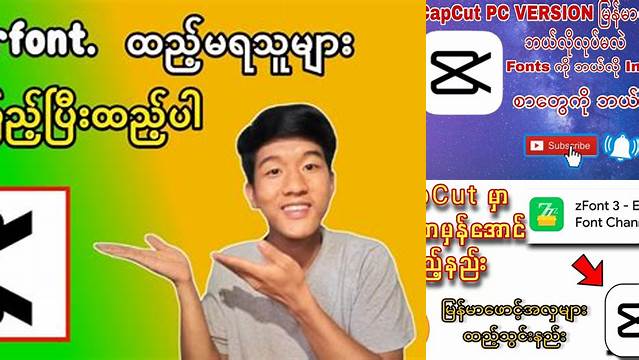
CapCut Myanmar Font: Free Download For Stunning Videos
Hey guys! Are you looking to spice up your video editing game with some awesome Myanmar fonts for CapCut? You've come to the right place! In this article, we're diving deep into the world of CapCut Myanmar fonts, showing you where to find them, how to download them for free, and how to use them to make your videos pop. Let's get started!
Myanmar Font Styles for CapCut
When it comes to choosing the right Myanmar font for CapCut, the options are endless! From traditional scripts to modern, stylized designs, there's a font out there to match every video theme and aesthetic. Whether you're creating a travel vlog, a cooking tutorial, or a music video, the right font can add a touch of authenticity and flair to your project. Explore various font styles to find the perfect match for your video's vibe. Experiment with different weights, sizes, and colors to see what looks best. Don't be afraid to mix and match fonts to create a unique and eye-catching design. Remember, the key is to choose a font that is both visually appealing and easy to read, ensuring that your message gets across effectively. So, go ahead and unleash your creativity with a wide range of Myanmar font styles available for CapCut. Let your videos stand out from the crowd with the perfect typography!
Using Myanmar Fonts in CapCut
Now for the fun part: using your newly installed Myanmar fonts in CapCut! Open up CapCut and start a new project or open an existing one. When you're ready to add text to your video, select the text tool and start typing. In the font selection menu, you should now see your Myanmar fonts listed alongside the default fonts. Simply select the font you want to use, adjust the size, color, and style to your liking, and position the text on the screen. Experiment with different font combinations and text effects to create a visually appealing design. Consider using animated text effects to add movement and dynamism to your videos. Additionally, pay attention to the legibility of your text. Choose a font size and color that are easy to read against the background of your video. Use contrasting colors to ensure that your text stands out and doesn't get lost in the visuals. With a little bit of experimentation, you'll be able to master the art of using Myanmar fonts in CapCut to create stunning and engaging videos that captivate your audience.
Best Myanmar Fonts for Different Video Themes
Choosing the right Myanmar font can really elevate your video. For travel vlogs, consider using fonts that evoke a sense of adventure and discovery. Look for fonts with a handwritten or calligraphy-inspired style to add a personal touch to your videos. For cooking tutorials, opt for fonts that are clean, modern, and easy to read. Choose fonts with a clear and legible design to ensure that viewers can easily follow along with your instructions. For music videos, experiment with bold and expressive fonts that reflect the energy and mood of the music. Look for fonts with unique shapes and textures to add visual interest to your videos. When selecting a font, consider the overall theme and tone of your video. Choose fonts that complement the visuals and enhance the message you're trying to convey. Don't be afraid to mix and match fonts to create a unique and eye-catching design. However, be sure to use fonts sparingly and avoid overcrowding your videos with too much text. With a little bit of creativity, you can use Myanmar fonts to enhance the storytelling and visual appeal of your videos, making them more engaging and memorable for your audience.
Creating Engaging Titles with Myanmar Fonts
Your video's title is the first thing viewers see, so make it count! Using a striking Myanmar font can instantly grab attention. For attention-grabbing titles, experiment with bold and impactful fonts that stand out from the background. Use contrasting colors to make your text pop and ensure that it's easily readable. Consider adding shadows, outlines, or other text effects to enhance the visual appeal of your titles. When creating titles, keep them concise and to the point. Use keywords that accurately reflect the content of your video to improve its searchability. Additionally, pay attention to the placement of your titles on the screen. Position them in a way that is visually balanced and doesn't obstruct the main visuals of your video. Use animations or transitions to bring your titles to life and make them more engaging. Experiment with different animation styles to find what works best for your video. With a little bit of creativity, you can use Myanmar fonts to create titles that are both visually appealing and informative, capturing the attention of your audience and enticing them to watch your video.
Adding Subtitles in Myanmar with CapCut
Subtitles are essential for making your videos accessible to a wider audience. CapCut makes it easy to add subtitles in Myanmar using your downloaded fonts. Import your video into CapCut and use the text tool to add subtitles. Choose a Myanmar font that is easy to read and matches the overall style of your video. Ensure that your subtitles are accurately translated and synchronized with the audio. Use clear and concise language to convey the message effectively. Position your subtitles at the bottom of the screen, where they are easily visible without obstructing the main visuals. Adjust the size and color of your subtitles to ensure that they are legible against the background. Consider adding a background or shadow to your subtitles to improve their visibility. With CapCut, you can easily create professional-looking subtitles in Myanmar that enhance the accessibility and engagement of your videos. By providing subtitles, you can reach a wider audience and make your videos more inclusive and enjoyable for everyone.
Tips for Readable Myanmar Text in Videos
Readability is key! Make sure your Myanmar text is easy to read by choosing the right font size and color. Use contrasting colors to ensure that your text stands out from the background. Avoid using overly ornate or decorative fonts that can be difficult to decipher. Pay attention to the spacing between letters and words to improve readability. Use clear and concise language to convey your message effectively. Position your text in a way that is visually balanced and doesn't obstruct the main visuals of your video. Consider adding a background or shadow to your text to improve its visibility. Test your video on different devices and screen sizes to ensure that your text is legible across all platforms. Get feedback from others to identify any potential readability issues. With a little bit of attention to detail, you can create Myanmar text that is both visually appealing and easy to read, enhancing the overall quality and effectiveness of your videos.
Copyright Considerations for Myanmar Fonts
Always be mindful of copyright when using Myanmar fonts. Before downloading and using any font, be sure to check its licensing terms. Some fonts are free for personal use but require a commercial license for use in commercial projects. Other fonts may have specific restrictions on how they can be used or modified. Respect the intellectual property rights of font designers and foundries. Avoid using fonts without proper authorization, as this can lead to legal consequences. If you're unsure about the licensing terms of a particular font, contact the designer or foundry for clarification. Consider using fonts that are licensed under open-source licenses, such as the SIL Open Font License (OFL), which allows for free use, modification, and distribution. By being mindful of copyright considerations, you can ensure that you're using Myanmar fonts legally and ethically, while also supporting the creative community.
Combining Myanmar and English Fonts
Mixing Myanmar and English fonts can create a visually interesting effect. When combining fonts, choose fonts that complement each other in terms of style and weight. Avoid using fonts that clash or compete for attention. Use Myanmar fonts for main headings or titles and English fonts for body text or supporting information. Ensure that the fonts are legible and easy to read in both languages. Consider the cultural context of your video when choosing fonts. Use fonts that are appropriate for the target audience and the message you're trying to convey. Experiment with different font combinations to find what works best for your video. Get feedback from others to see how the fonts look together. With a little bit of creativity, you can use Myanmar and English fonts to create a visually appealing and culturally relevant video.
CapCut Font Alternatives for Myanmar Script
If you're having trouble finding the perfect Myanmar font for CapCut, consider exploring font alternatives that support the Myanmar script. There are several fonts available that offer similar styles and characteristics to traditional Myanmar fonts. Look for fonts that are designed to be legible and easy to read on screen. Consider fonts that are available under open-source licenses, which allow for free use and modification. Explore font foundries that specialize in creating fonts for Southeast Asian languages. Check online forums and communities for recommendations on font alternatives. Experiment with different font options to find what works best for your video. Don't be afraid to try something new and unique. With a little bit of research and creativity, you can find the perfect font alternative to enhance your CapCut videos.
Font Pairing Tips for Myanmar Typography
Font pairing is an art! Here are some tips for pairing Myanmar fonts with other fonts. Choose fonts that have contrasting styles to create visual interest. Pair a bold Myanmar font with a lighter sans-serif font for a balanced look. Use a script Myanmar font for headings and a simple sans-serif font for body text. Consider the personality of each font when pairing them. Use fonts that complement each other in terms of mood and tone. Avoid using too many fonts in a single design, as this can create a cluttered and confusing look. Stick to two or three fonts at most. Use a font pairing tool or website for inspiration. Get feedback from others on your font pairings. With a little bit of experimentation, you can master the art of font pairing and create visually stunning designs.
Mobile vs. Desktop Font Installation for CapCut
The process of installing Myanmar fonts for CapCut may vary depending on whether you're using a mobile device or a desktop computer. On a desktop computer, you typically need to download the font files and install them directly onto your system. This will make the fonts available to all applications on your computer, including CapCut. On a mobile device, the process may be different. Some mobile devices allow you to install fonts directly through a font management app, while others may require you to use a file manager to copy the font files to a specific directory. Check the documentation for your mobile device to learn how to install fonts. Keep in mind that not all Myanmar fonts may be compatible with mobile devices. Test the fonts on your device to ensure that they display correctly. With a little bit of effort, you can install Myanmar fonts on both your mobile and desktop devices and use them to create stunning videos with CapCut.
Advanced Text Effects with Myanmar Fonts in CapCut
Take your Myanmar text to the next level with advanced text effects in CapCut! Experiment with shadows, outlines, and glows to make your text stand out. Use animation to bring your text to life and add movement to your videos. Try different blending modes to create unique visual effects. Use masks to reveal or hide portions of your text. Add textures to your text to give it a more tactile feel. Use gradients to create a smooth transition between colors. Experiment with 3D effects to add depth and dimension to your text. With a little bit of creativity, you can use advanced text effects to create visually stunning Myanmar text that captivates your audience. Explore the various text editing tools in CapCut and see what you can create!
Optimizing Myanmar Font Size for Different Screens
Myanmar Font size is crucial for readability, especially on different screens. What looks good on your computer might be too small on a phone. Adjust your font size based on the device your audience will likely use. For mobile viewers, go bigger! Test your videos on different devices to ensure your Myanmar text is always clear. Think about the resolution too - higher resolution screens can handle smaller fonts better. Don't be afraid to experiment until it looks just right!
Choosing the Right Font Weight for Myanmar Text
Font weight matters. A Myanmar font that's too light can be hard to read, while one that's too bold can be overwhelming. Choose a font weight that complements your video's style and ensures readability. Lighter weights work well for minimalist designs, while heavier weights are great for grabbing attention. Consider the background of your video - a darker background might require a bolder font. Test different weights to see what looks best! Remember, the goal is clear and engaging Myanmar text.
Adding Myanmar Font to CapCut on iOS
Adding a Myanmar font to CapCut on iOS is slightly different. First, you'll need a font installer app. Download your desired Myanmar font and use the app to install it on your device. Then, open CapCut and your new font should be available in the text options. Make sure the font is compatible with iOS! Restarting CapCut can sometimes help if the font doesn't appear immediately. Enjoy using your custom Myanmar font in your videos!
Adding Myanmar Font to CapCut on Android
For Android users, adding a Myanmar font to CapCut is a bit more straightforward. Download the Myanmar font file. Use a file manager to move the font file to the "Fonts" folder on your device (if it doesn't exist, create one). Restart CapCut, and the font should now be available. Some Android devices might require a font installer app. Double-check that the font is compatible with your Android version. Now you can create awesome videos with your personalized Myanmar font!
Creating Myanmar Text Templates for CapCut
Want to save time? Create Myanmar text templates for CapCut! Design your text with your favorite Myanmar font, add effects, and save it as a template. Now you can easily reuse this template in future videos! This is great for branding and consistency. Experiment with different styles and create a library of templates. Share your templates with friends and collaborators! This makes video editing faster and more efficient.
Using Unicode Myanmar Fonts in CapCut
Unicode Myanmar fonts are your best bet for compatibility. They ensure that your Myanmar text displays correctly across different devices and platforms. When downloading Myanmar fonts, look for those that are Unicode compliant. This will prevent issues like garbled text or missing characters. Test your Myanmar text on different devices to ensure it looks perfect everywhere. Unicode is your friend for seamless Myanmar text in CapCut!
Finding Copyright-Free Myanmar Fonts
Finding copyright-free Myanmar fonts can be tricky. Look for fonts with a Creative Commons license or those explicitly labeled as public domain. Websites like Google Fonts often offer copyright-free Myanmar fonts. Always double-check the license before using a font in your commercial projects. Using copyright-free Myanmar fonts ensures you're not violating any intellectual property rights. Be sure to credit the font designer if required by the license.
Myanmar Font Generators for CapCut
Myanmar font generators can help you create unique text designs for CapCut. These tools allow you to customize your text with different styles, colors, and effects. Simply type in your Myanmar text and experiment with the options. Some generators even offer pre-designed templates. Download your customized text and import it into CapCut. This is a great way to add a personal touch to your videos.
Exploring Calligraphy Myanmar Fonts for Videos
Calligraphy Myanmar fonts add elegance and sophistication to your videos. These fonts mimic the beautiful strokes of traditional Myanmar calligraphy. Use them for titles, intros, or special announcements. Choose a calligraphy Myanmar font that is easy to read and complements your video's style. Experiment with different colors and effects to enhance its visual appeal. Calligraphy Myanmar fonts can elevate your videos to a whole new level!
Monotype Myanmar Fonts for Professional Videos
Monotype Myanmar fonts are known for their high quality and professional look. They are designed for optimal readability and visual appeal. Using Monotype Myanmar fonts can give your videos a polished and sophisticated feel. These fonts are often used in corporate videos, documentaries, and educational content. While they may come at a cost, the investment is worth it for professional-grade typography.
How to Resize Myanmar Fonts Effectively
Resizing Myanmar fonts effectively is crucial for readability. Use a font size that is appropriate for the screen size and viewing distance. Avoid making the font too small or too large, as this can strain the eyes. Test your videos on different devices to ensure that the font size is optimal. Use responsive design techniques to automatically adjust the font size based on the screen size. Proper font resizing ensures that your Myanmar text is always clear and legible.
Best Practices for Using Myanmar Fonts in Video Editing
Follow these best practices for using Myanmar fonts in video editing. Choose fonts that are easy to read and complement your video's style. Use consistent font styles throughout your video. Pay attention to font size, color, and spacing. Ensure that your Myanmar text is accurately translated and synchronized with the audio. Avoid using too many different fonts in a single video. Test your videos on different devices to ensure that the fonts display correctly. By following these best practices, you can create videos with professional-looking Myanmar typography.
Legal Aspects of Using Myanmar Fonts in Commercial Projects
Understand the legal aspects of using Myanmar fonts in commercial projects. Always check the font license before using it in your videos. Some fonts are free for personal use but require a commercial license for commercial projects. Respect the intellectual property rights of font designers and foundries. Avoid using fonts without proper authorization. Seek legal advice if you are unsure about the licensing terms of a particular font. Using fonts legally ensures that you are not violating any copyright laws.
Future Trends in Myanmar Typography for Video
Stay ahead of the curve by exploring future trends in Myanmar typography for video. Experiment with new font styles and effects. Incorporate animation and motion graphics into your Myanmar text. Use artificial intelligence to generate unique font designs. Explore the possibilities of virtual and augmented reality typography. The future of Myanmar typography is bright, so embrace innovation and creativity!